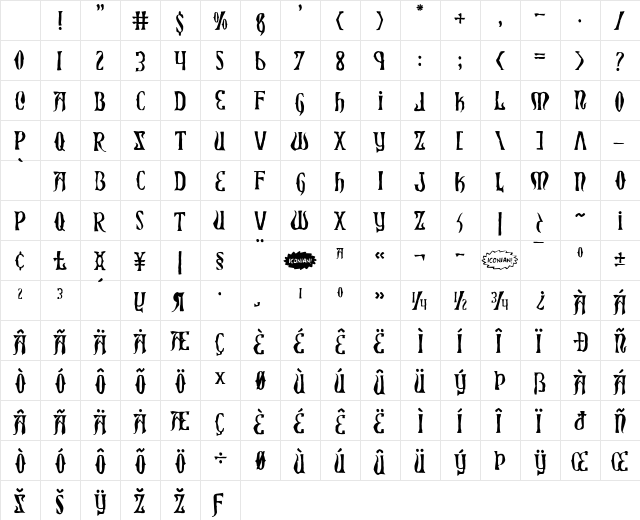
Complete Xiphos Horror glyph index. Displaying only characters natively supported by Xiphos Horror font.
Xiphos carries an unsettling edge - its distorted letterforms are built to unsettle, perfectly suited to horror, Halloween, and dark creative work.
Font Pairing: Pair with a clean neutral sans-serif for body copy to let Xiphos's character lead without overwhelming the composition.
Pro Tip: Use Xiphos at larger display sizes for maximum impact. Consider generous tracking to let the disturbing character of each letterform breathe.